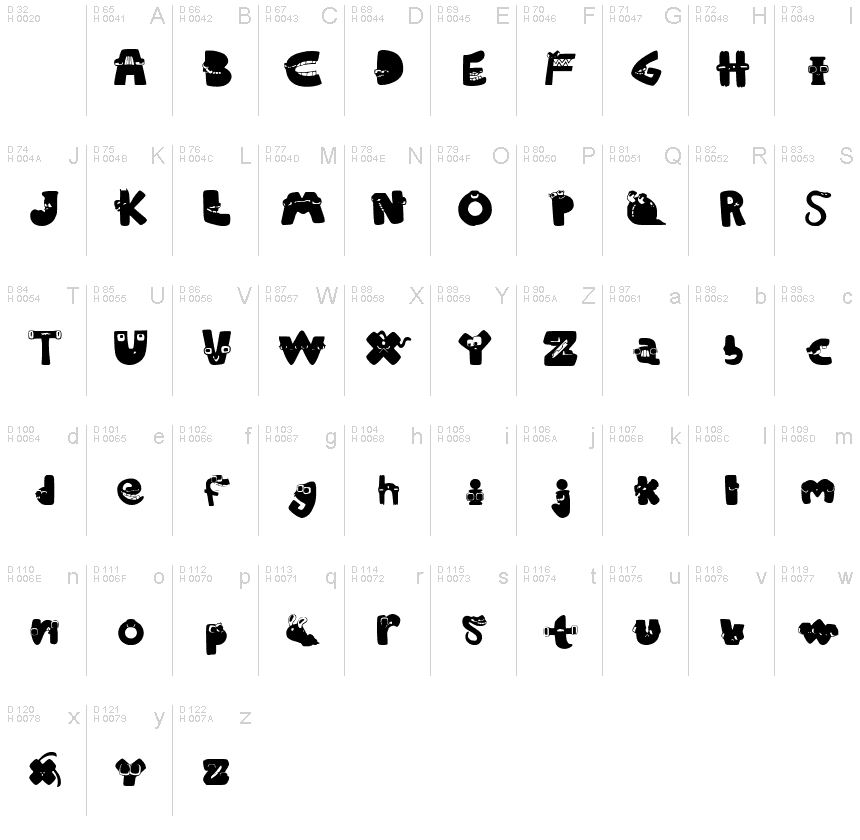
Salcedo Regular
Unleash your creativity with Salcedo, a captivating display font designed by Afeef Falah. This unique typeface is bursting with personality, making it the perfect choice for a wide range of creative projects. Its bold weight and playful cartoon style give it an eye-catching quality that can bring any design to life.
Whether you're designing a children's book, creating packaging for a fun product, or developing an eye-catching logo, Salcedo is sure to make a statement. With its distinctive characteristics and versatility, this font has the potential to elevate any project and leave a lasting impression.
Embrace the limitless possibilities of Salcedo and let your imagination soar.
It is inspired by the "alphabet lore" series logo.
Whether you're designing a children's book, creating packaging for a fun product, or developing an eye-catching logo, Salcedo is sure to make a statement. With its distinctive characteristics and versatility, this font has the potential to elevate any project and leave a lasting impression.
Embrace the limitless possibilities of Salcedo and let your imagination soar.
It is inspired by the "alphabet lore" series logo.